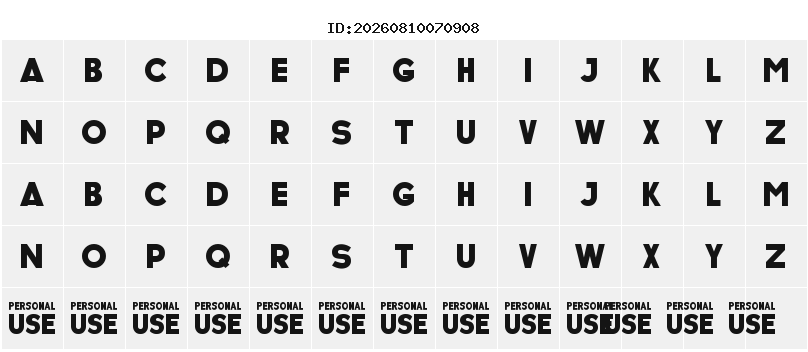
• Font Name: POWERLESS
• Designer: Luis Jaramillo
• Manufacturer: LJ-Design Studios
About POWERLESS.ttf
POWERLESS.ttf is a modern, elegant sans-serif font designed for ultimate readability and visual harmony. Perfect for branding, headlines, web design, and print materials.